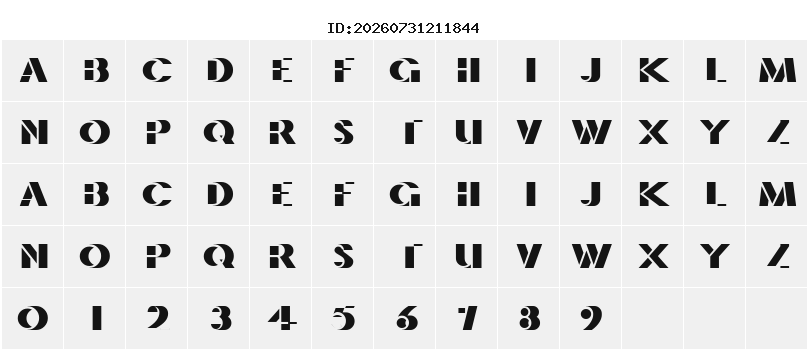
• Font Name: Le Film
• Font Style: Shadow
About Le Film.ttf
Le Film.ttf is a modern, elegant sans-serif font designed for ultimate readability and visual harmony. Perfect for branding, headlines, web design, and print materials.